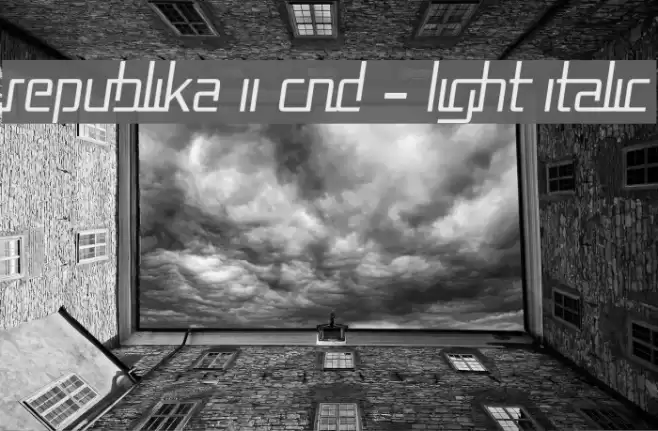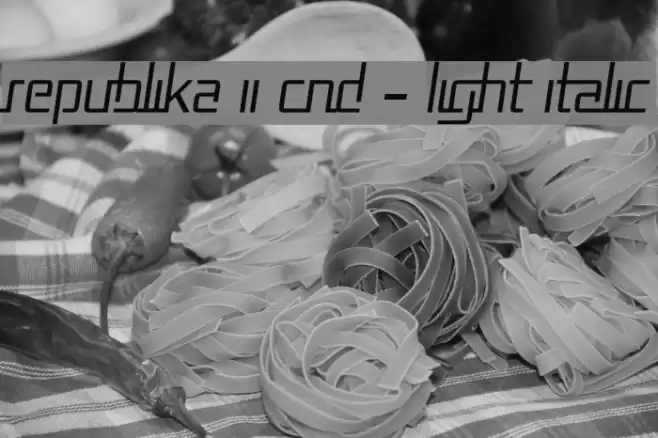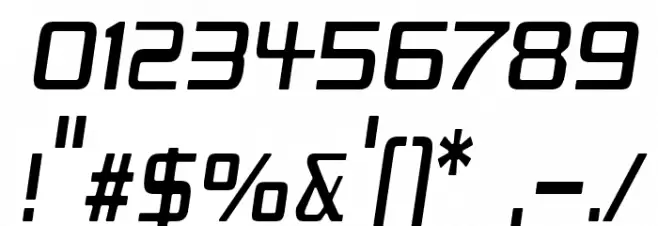
Republika II Cnd - Light Italic Font
Republika II Cnd - Light Italic Description
This font features a sleek, modern design with a condensed and italicized style. The characters are crafted with a geometric precision, offering a futuristic and streamlined appearance. The strokes are consistent and light, providing an airy feel while maintaining readability. The font's angular and slightly slanted form gives it a dynamic and energetic look, making it suitable for contemporary design projects. The spacing between characters is tight, enhancing its compact and efficient aesthetic.
A modern, condensed, and italicized font with a geometric and futuristic design from Uncategorized fonts.
- Proposed Projects: Ideal for tech branding, modern advertising, futuristic posters, and innovative product packaging.
- Weight: Light
- Character Spacing: Tight